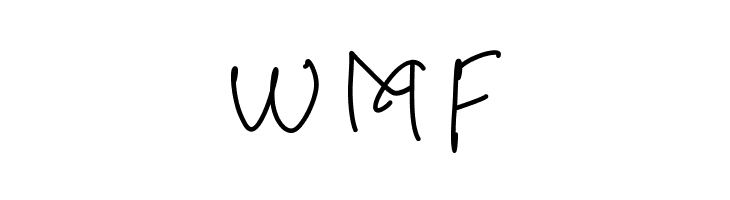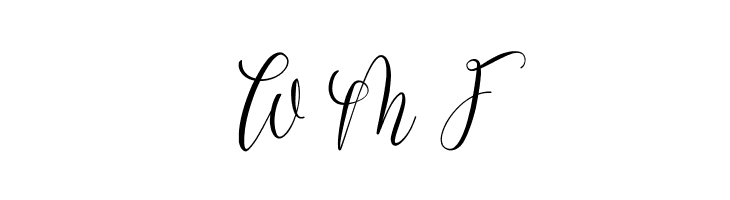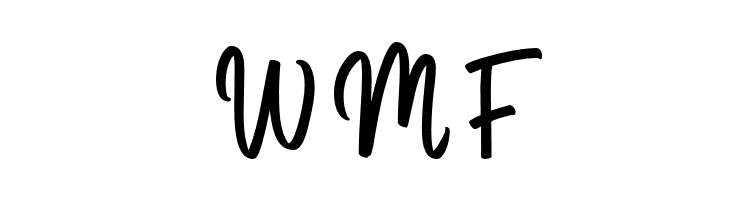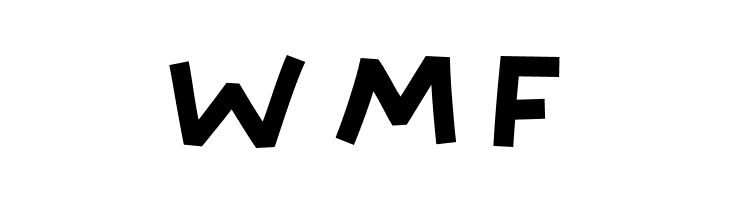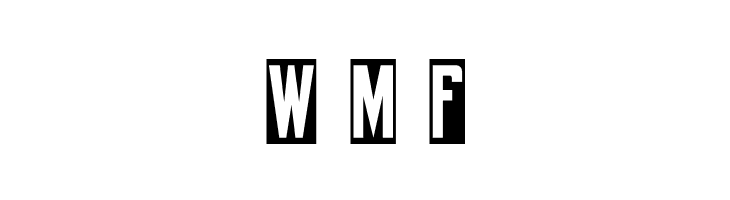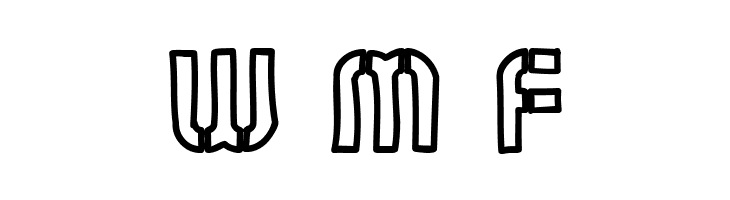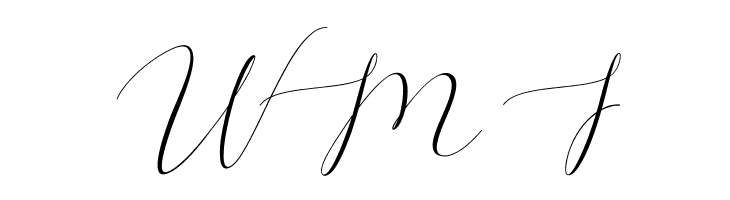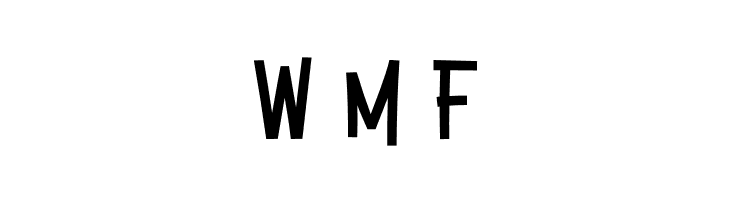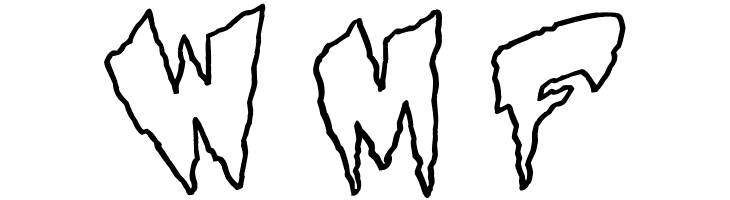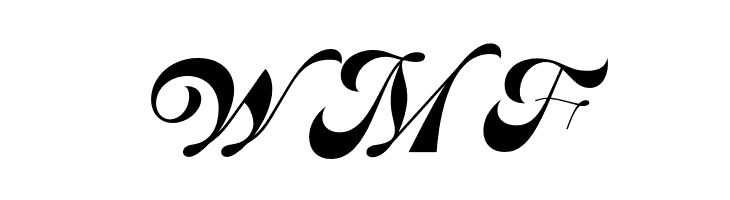
An elegant script font with intricate loops and swashes, perfect for sophisticated designs.
A playful, casual handwritten font with fluid, organic strokes.
An elegant, flowing script font with high contrast and interconnected letterforms.
A thin, handwritten font with a casual and modern style.
A lively and flowing script font with smooth, connected strokes and playful curves.
A decorative and flowing script font with elegant curves and artistic flair.
A playful, bold font with a hand-drawn, friendly appearance.
A city skyline-themed font with characters resembling urban architecture.
A playful, handwritten font with tall, narrow letters and consistent stroke width.
A graceful script font with fluid, cursive strokes and elegant character design.
A bold, rounded font with a playful and approachable style.
A bold, dynamic font with tall uppercase and elegant lowercase letters.
A bold, geometric font with tall, narrow letters and enclosed rectangular blocks.
A bold, outlined font with a playful, three-dimensional style.
A robust slab serif font with a modern yet classic appeal.
A sophisticated script font with elegant flourishes and high contrast strokes.
A bold, expressive handwritten font with dynamic, fluid strokes.
A lively handwritten font with fluid strokes and dynamic character.
A bold, rounded font with a handcrafted, organic feel.
A playful, handwritten cursive font with fluid, connected strokes.
A playful, bold, and hand-drawn style font with irregular strokes.
A bold, jagged font with a dynamic, graffiti-like style.
An elegant, flowing script font with a handwritten style.
A flowing, cursive script font with elegant, connected characters.
A bold, decorative script font with elegant curves and medium contrast.
A bold, modern sans-serif font with clean lines and a slightly condensed style.
A bold, hand-drawn ink style font with dynamic and expressive characters.
A bold, hand-drawn font with a playful and dynamic style.
A bold, rounded, and playful font with a bubbly appearance.
A playful, bone-like font with bold, organic shapes and a whimsical style.
A bold, distressed font with a newspaper cutout style and vintage appeal.
A bold, artistic font with geometric and abstract character designs.
An elegant script font with flowing, cursive strokes and high contrast.
A bold, italic font with a halftone texture and dynamic style.
A bold, decorative font with a vintage, three-dimensional style.